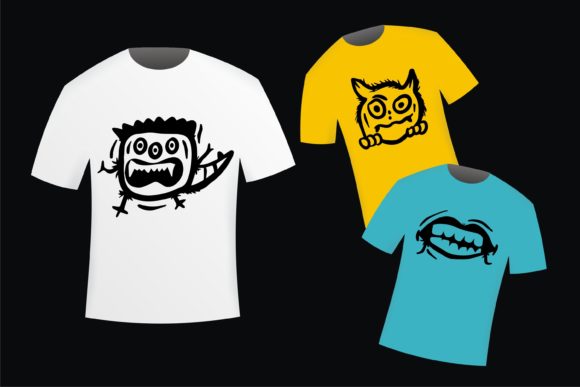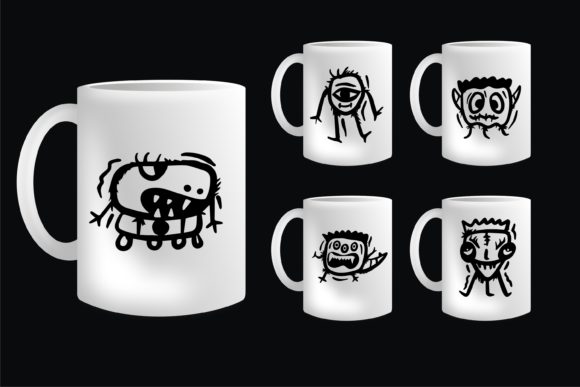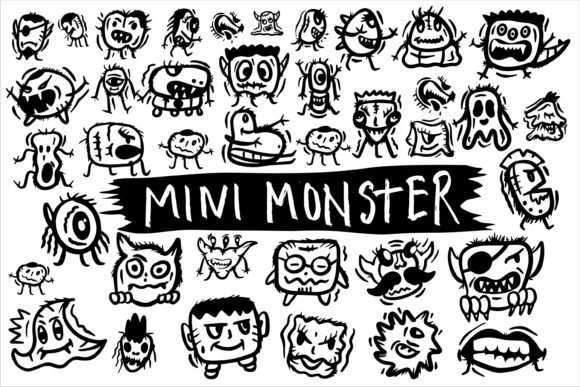
Introduction to Mini Monster Font
Mini Monster is a fun and quirky dingbats font with horror characters, scary but funny and adorable vibes.
No matter the topic, this font will be an incredible asset to your fonts’ library, as it has the potential to enhance any creation .
Key Features of Mini Monster Font
Why Choose Mini Monster Font?
Mini Monster Font offers exceptional quality and versatility, making it a valuable addition to your design toolkit. Whether you’re creating for personal projects or commercial use, Mini Monster Font delivers professional results.